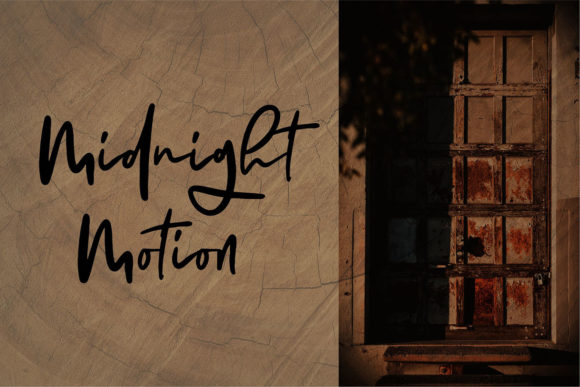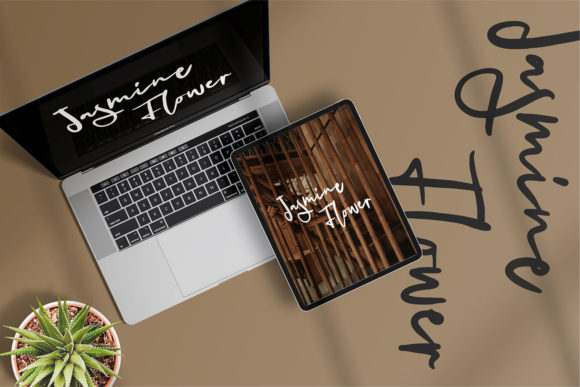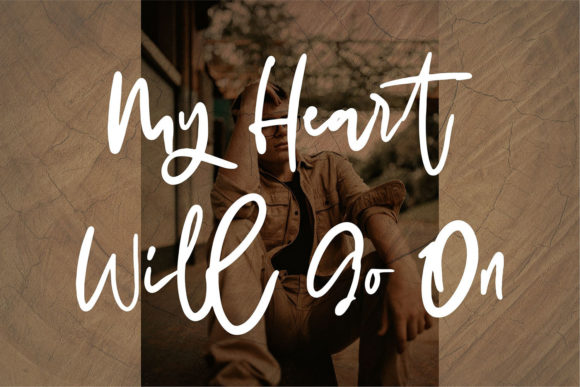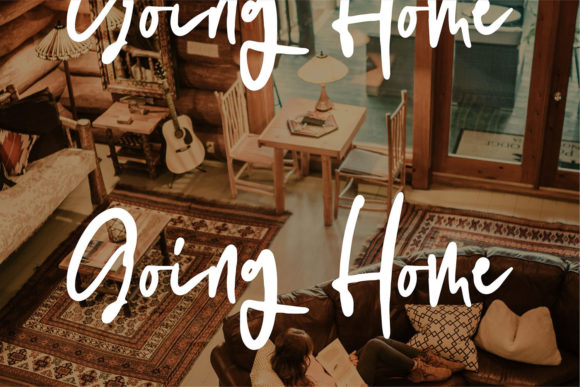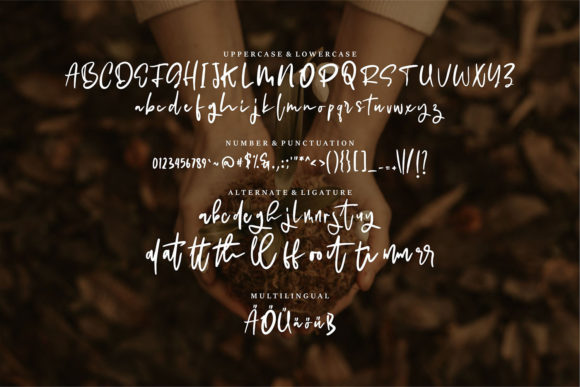
Balley Font: Elevate Your Designs with a Relaxed and Casual Script
In the world of typography, fonts play a crucial role in conveying the tone and personality of a design. For designers and crafters looking to add a touch of elegance and refreshment to their creations, Balley Font is an excellent choice. This beautifully crafted script font is designed to bring a sense of relaxation and casual sophistication to any project.
What is Balley Font?
Balley Font is a relaxed and casual script font that has been carefully crafted for designers who need a beautiful and refreshing look for their designs. With its smooth and flowing lines, Balley Font exudes a sense of elegance and sophistication, making it perfect for a wide range of design applications.
Key Features of Balley Font
So, what makes Balley Font stand out from other script fonts? Here are some of its key features:
- Relaxed and Casual: Balley Font has a relaxed and casual feel to it, making it perfect for designs that require a friendly and approachable tone.
- Beautiful and Refreshing: With its smooth lines and elegant curves, Balley Font adds a touch of beauty and refreshment to any design.
- Script Font: Balley Font is a script font, which means it’s perfect for adding a personal and creative touch to your designs.
- Versatile: Balley Font can be used for a wide range of design applications, from branding and advertising to packaging and digital media.
Use Cases for Balley Font
Balley Font is a versatile font that can be used for a variety of design projects. Here are some use cases where Balley Font shines:
- Branding and Logo Design: Balley Font is perfect for creating elegant and sophisticated brand logos that convey a sense of relaxation and casualness.
- Advertising and Marketing: Use Balley Font to create eye-catching ad campaigns that grab attention and leave a lasting impression.
- Packaging Design: Balley Font is great for packaging design, adding a touch of elegance and sophistication to product labels and packaging.
- Digital Media: Balley Font can be used for digital media, such as social media graphics, blog posts, and website headers.
Tips for Using Balley Font
Here are some tips for using Balley Font effectively in your designs:
- Pair with Other Fonts: Experiment with pairing Balley Font with other fonts to create a unique and visually appealing combination.
- Use for Headings: Balley Font is perfect for headings and titles, adding a touch of elegance and sophistication to your designs.
- Adjust Font Size: Experiment with different font sizes to create visual hierarchy and emphasize important information.
- Play with Colors: Try out different colors and gradients to add depth and interest to your designs.
In conclusion, Balley Font is a beautiful and refreshing script font that’s perfect for designers and crafters looking to add a touch of elegance and sophistication to their designs. With its relaxed and casual feel, Balley Font is versatile and can be used for a wide range of design applications. By following the tips outlined above, you can effectively use Balley Font to elevate your designs and create stunning visual experiences.